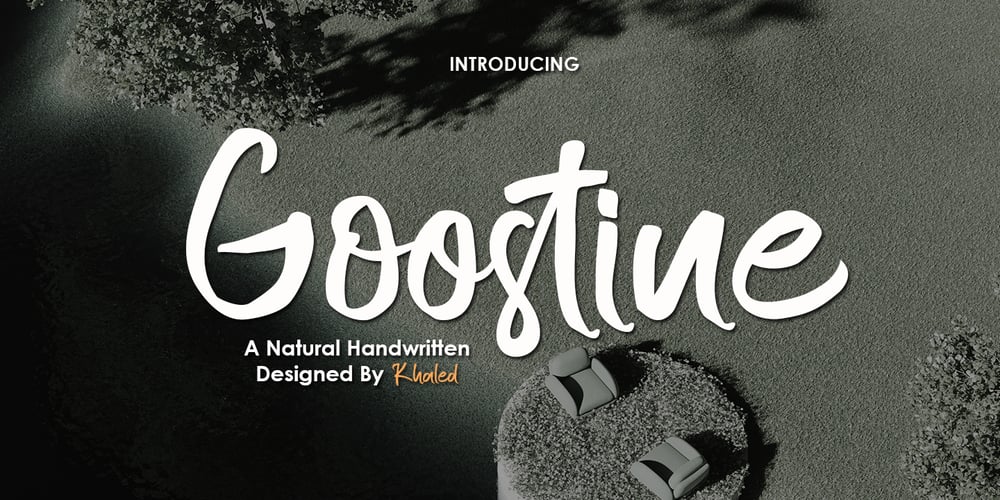
Goostine
Goostine font
Goostine Font Family was designed by Khaled and published by Akifatype. Goostine contains 1 styles and family package options. Goostine is a modern handwritten brush font, organic, dynamic and energetic sytle.Can used for various purposes. such as the title, signature, logo, correspondence, wedding invitations, letterhead, signage, labels, newsletters, posters, badges, etc.